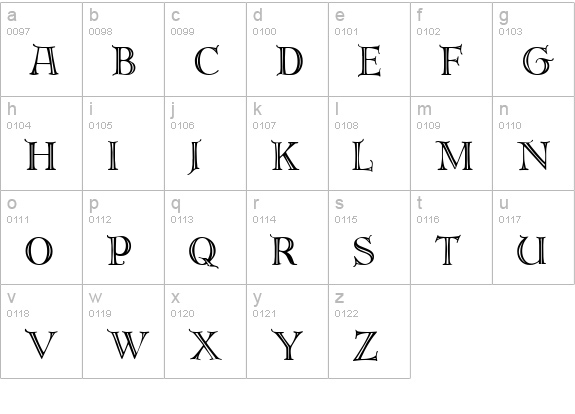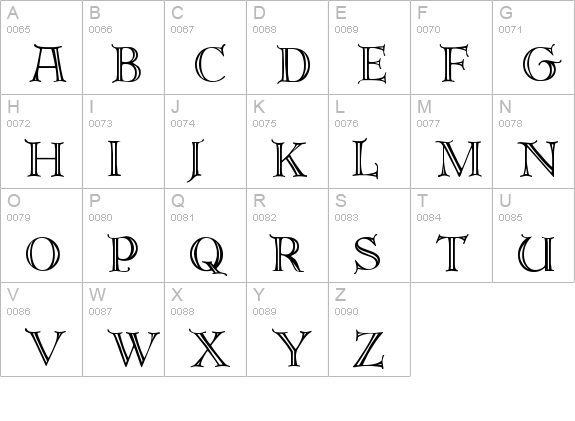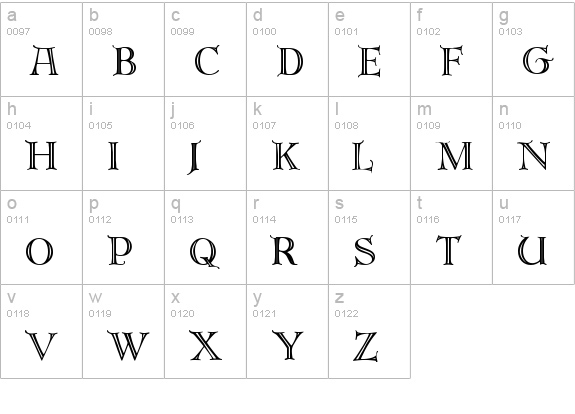
DeRoosCaps Font Details
DeRoosCaps font is a stunning display typeface that exudes elegance and sophistication. With its graceful lines and sharp edges, this font is perfect for adding a touch of class to any project. Whether you're designing a wedding invitation, branding materials, or a high-end product packaging, DeRoosCaps font will elevate your design to the next level. This font features beautifully crafted capital letters that are both timeless and modern, making it a versatile choice for a variety of design applications. The sleek and stylish appearance of DeRoosCaps font will captivate your audience and leave a lasting impression. The best part? DeRoosCaps font is completely free to download at FontsMarket.com. You can easily access this gorgeous typeface and incorporate it into your projects without any cost. Don't miss out on the opportunity to enhance your designs with the exquisite DeRoosCaps font. Download it today and elevate your creations to new heights!